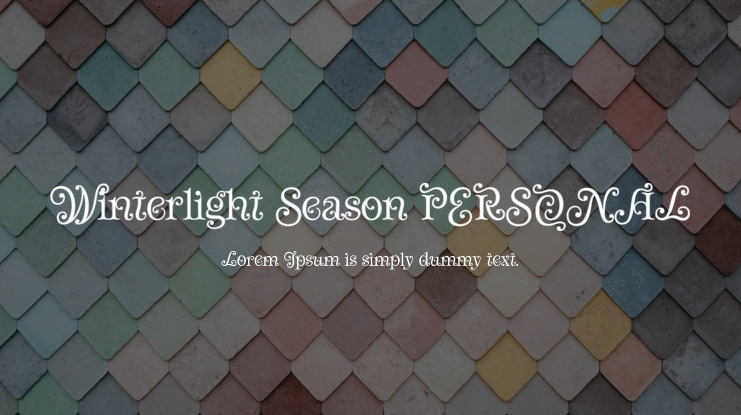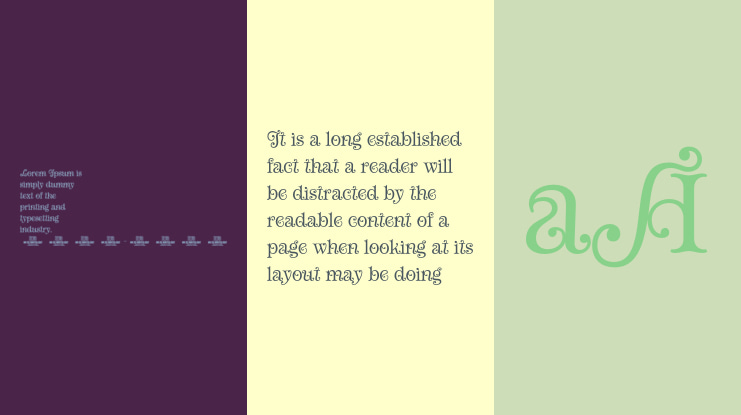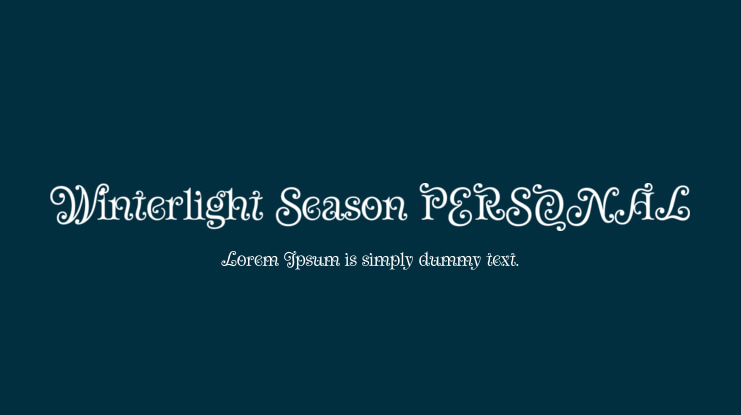
Winterlight Season PERSONAL Font Family
NOTE: This font is for personal use only! To purchase a commercial license, please visit: Winterlight Season. This font captures the enchantment of Christmas with its swirly design. You can use the percent character (%) and a number to create Christmas symbols. For example: Secret %37 Santa. For any questions, please visit our FAQ page.